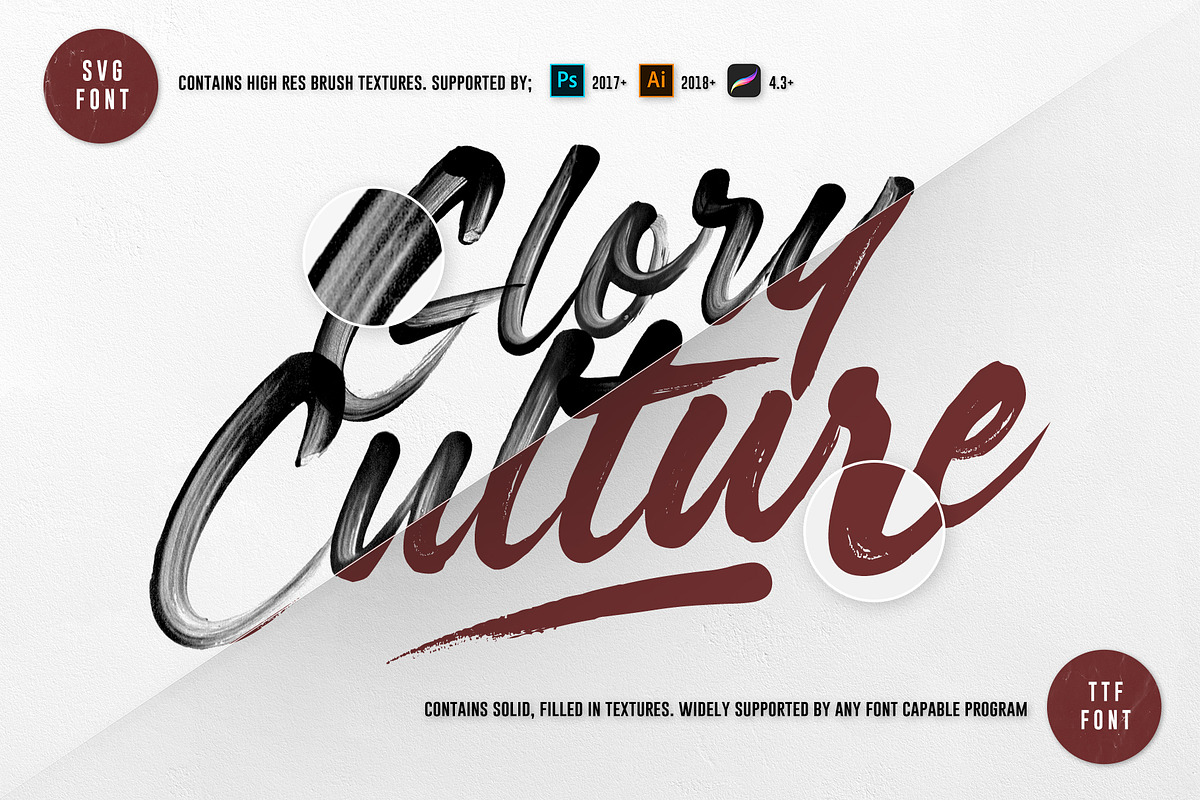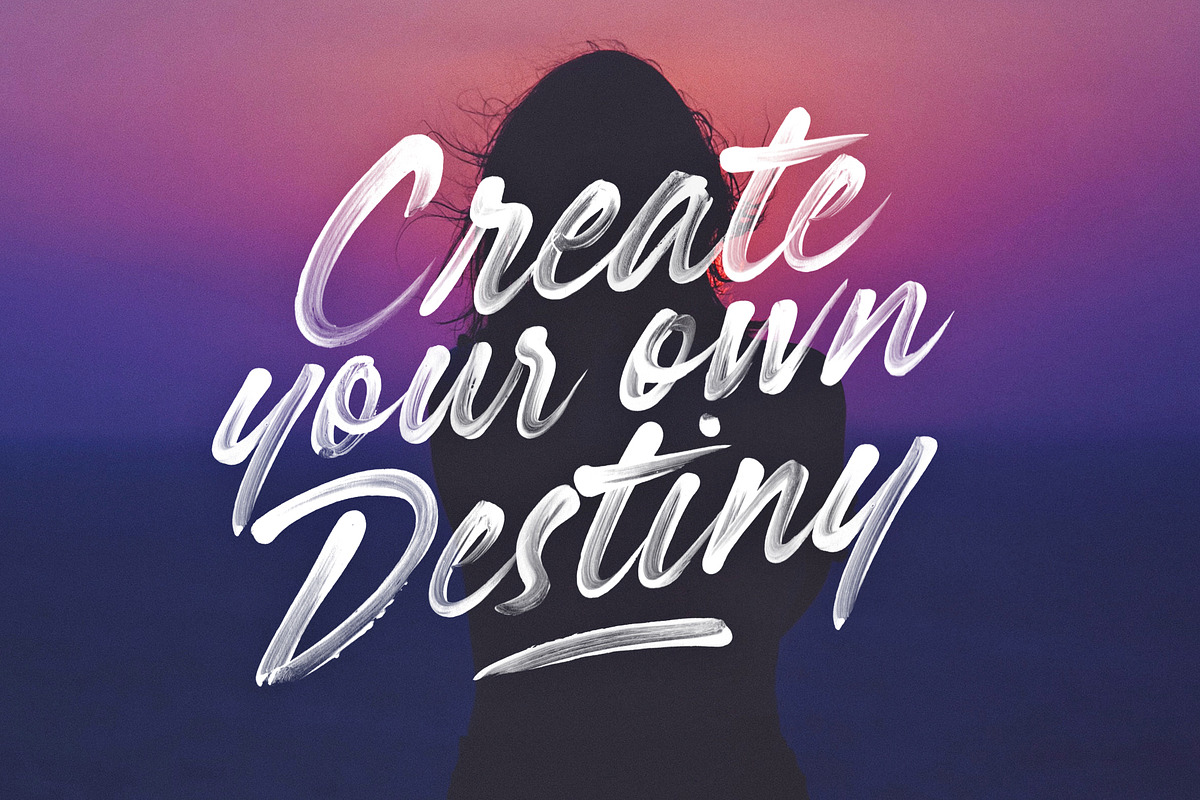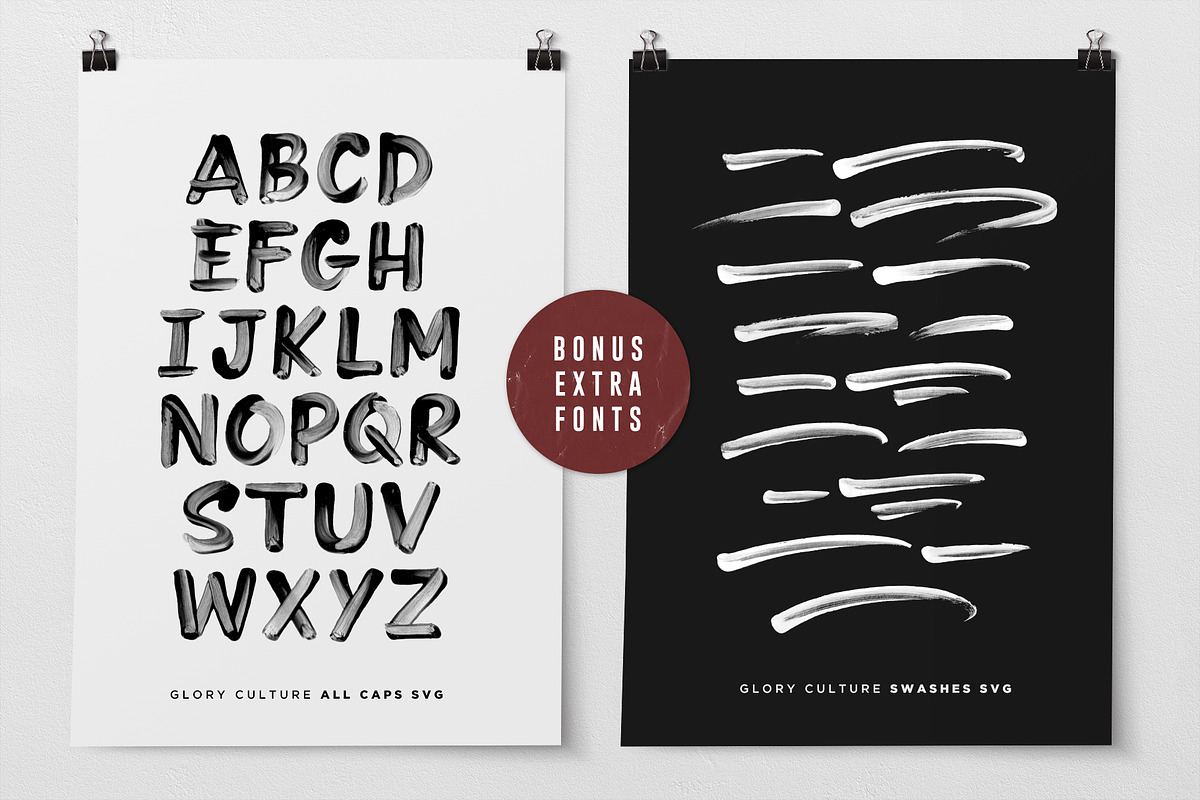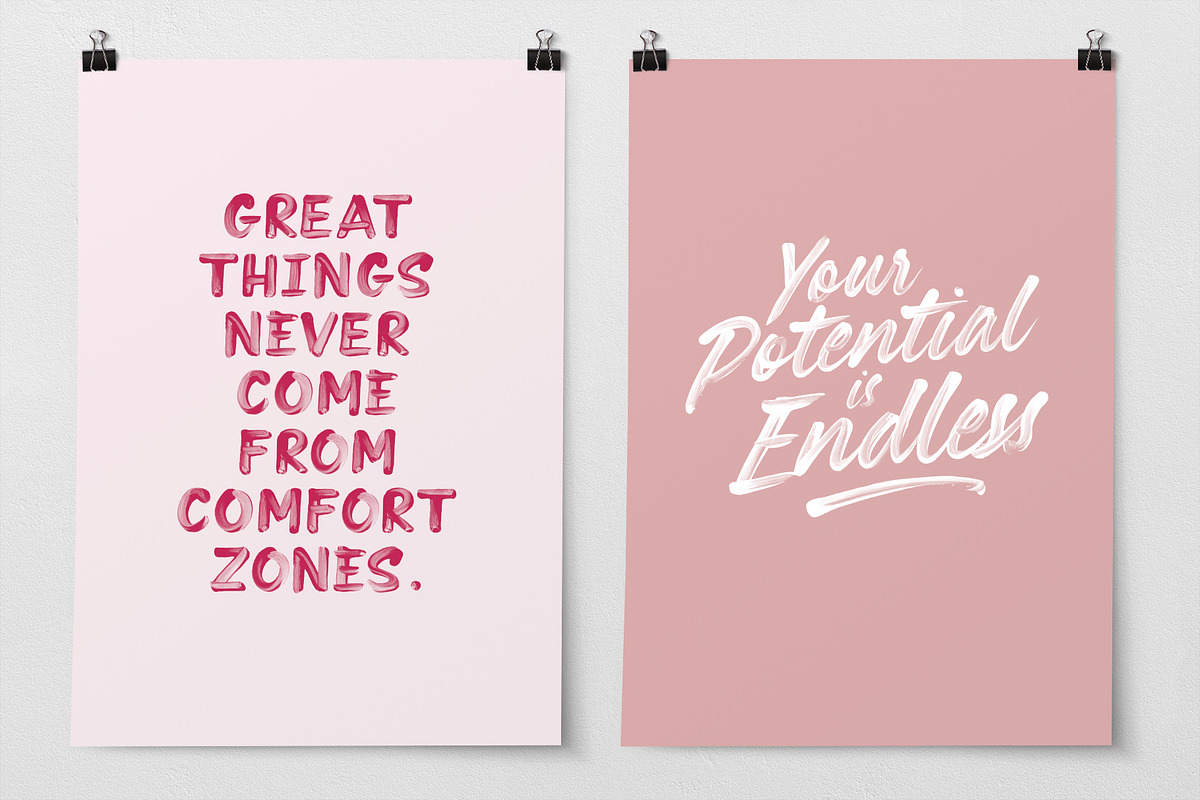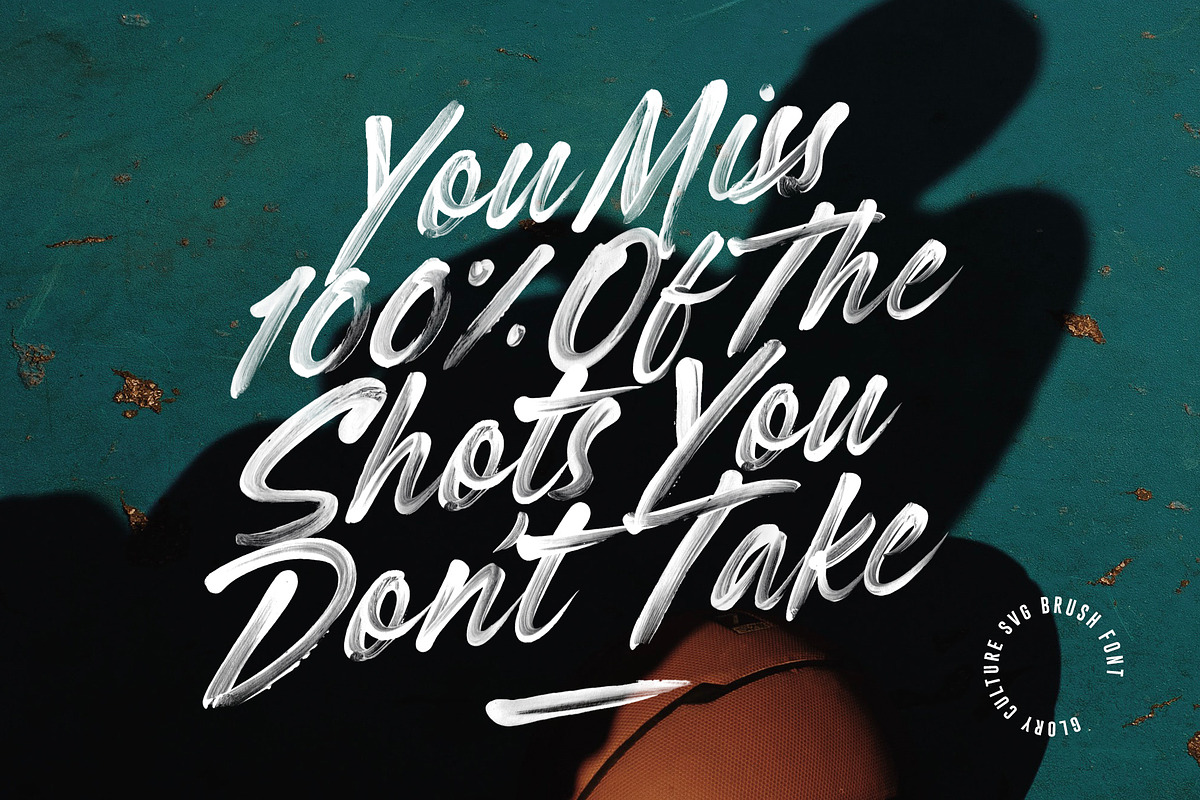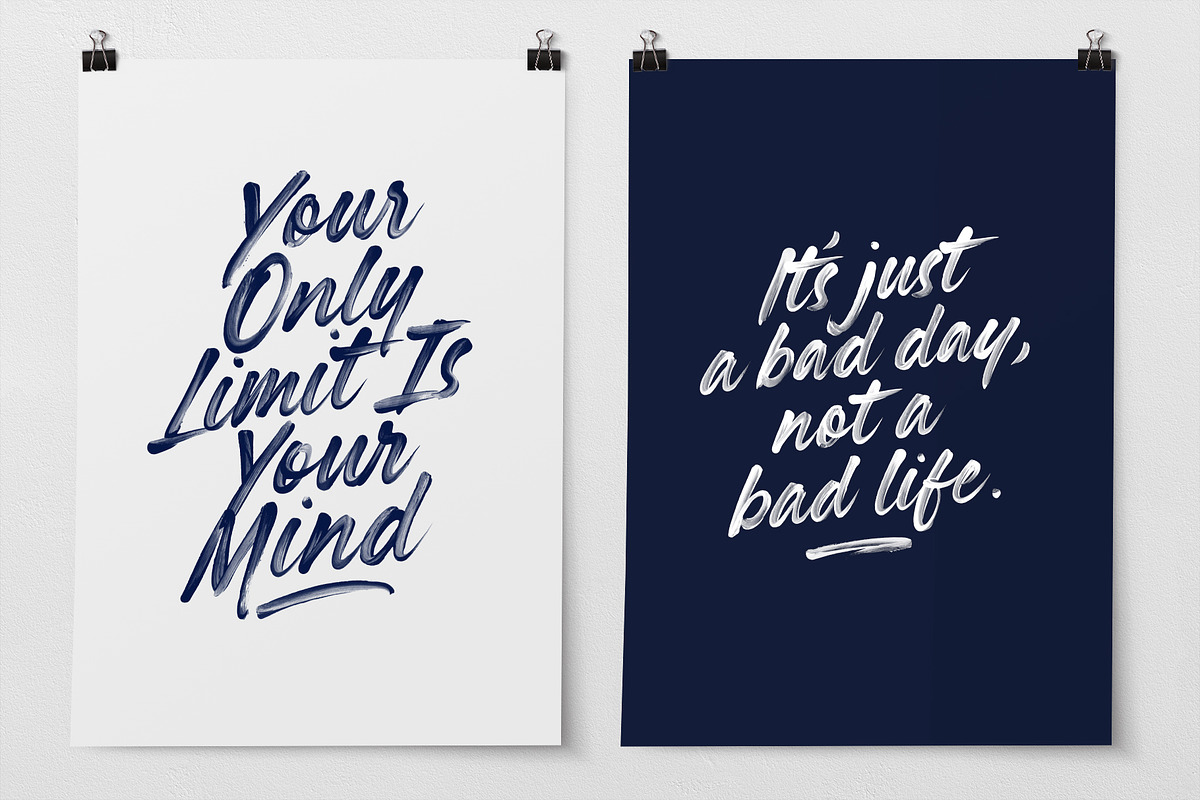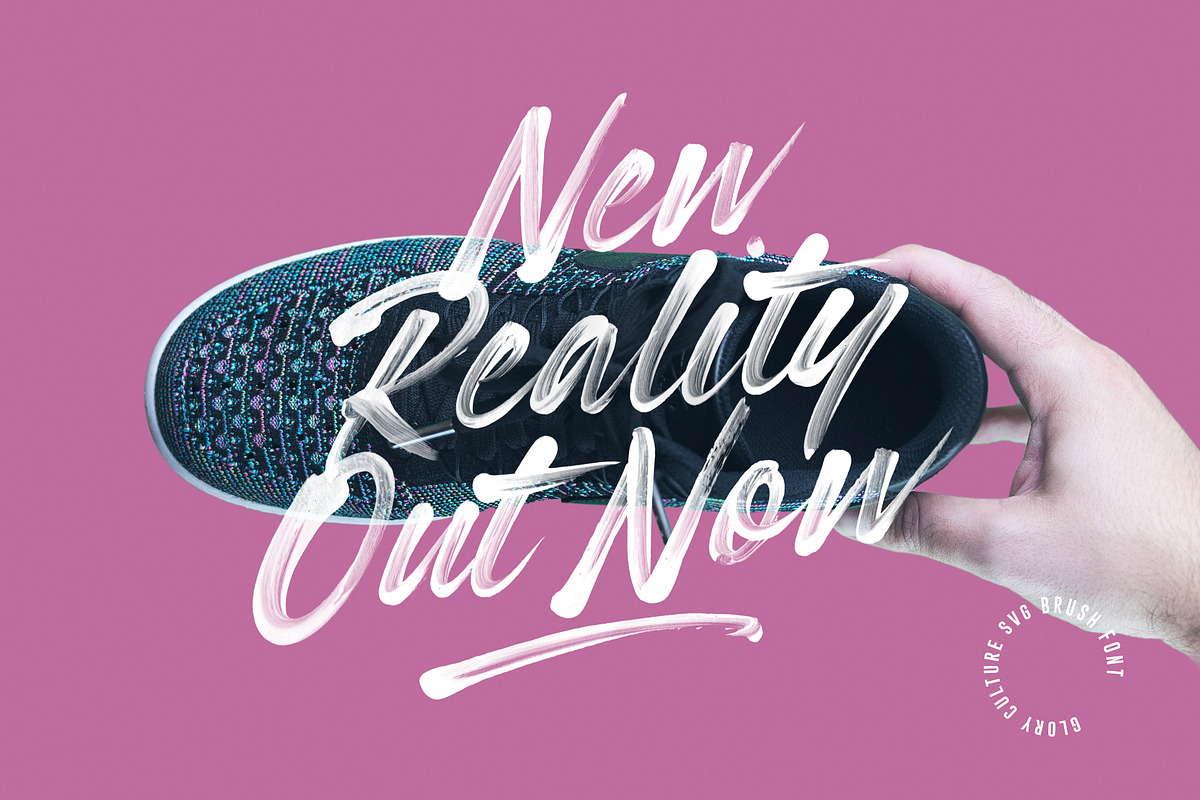
Glory Culture SVG Font + Extras
Introducing Glory Culture SVG Font; a fresh & modern brush script which maintains it's original, hand-painted brush strokes - these brush details are completely built in to the font as a transparency, thanks to new Opentype-SVG font technology. Just simply type away and let the font do it's magic! It creates unmissable authentic display text for social media posts, advertisements, posters, products packaging & more - and also includes bonus all-caps and swash fonts!
1. Glory Culture SVG • A high definition OpenType-SVG brush script font, containing upper & lowercase characters, numerals & a large range of punctuation.
2. Glory Culture Alt SVG • This is a second version of Glory Culture SVG, with a completely new set of upper & lowercase characters. If you wanted to avoid letters looking the same each time to recreate a custom-made style, or try a different word shape, simply switch to this font for an additional layout option.
3. Glory Culture All Caps SVG • A bonus font with a new set of uppercase characters, which work much better when using all-caps. Pairs perfectly with the regular version, or also works great as it's own standalone font. Turn on caps lock for a completely alternate set of A-Z letters.
4. Glory Culture Swash SVG • A set of 18 swashes - perfect for underlining your Glory Culture text and adding an extra custom touch.
Ligatures • Glory Culture script fonts include 27 built-in ligatures. These letter pairs help to create authentic, naturally flowing hand-lettering. Ligatures are supported by most desktop graphics & text software (not just the fancy ones!), including Photoshop, Illustrator, InDesign, Word, Pages & Keynote. Ligatures will automatically be switched on when using supported software.